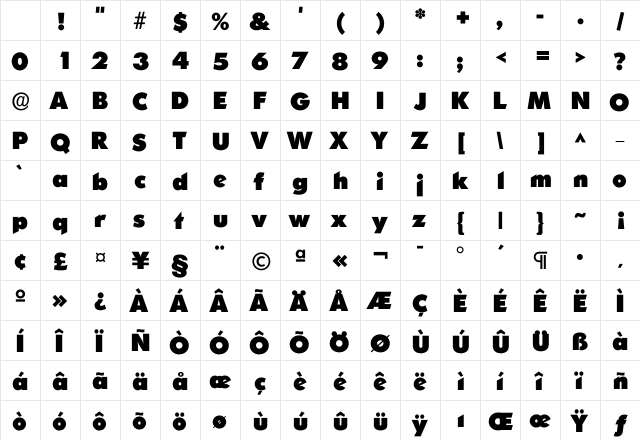
Complete Ornito Heavy glyph index. Displaying only characters natively supported by Ornito Heavy font.
Ornito is a composed and adaptable typeface that performs quietly and consistently across a wide range of design contexts.